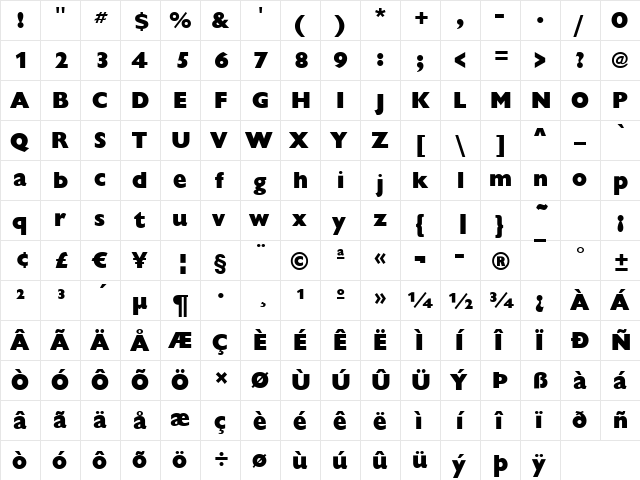
Chantilly-Xbold Regular
Design Context for Chantilly-Xbold Typeface
Chantilly-Xbold takes a measured approach to typography — its balanced proportions and neutral character make it a reliable workhorse for both digital and print work. Its bold stroke weight gives it real presence on the page.